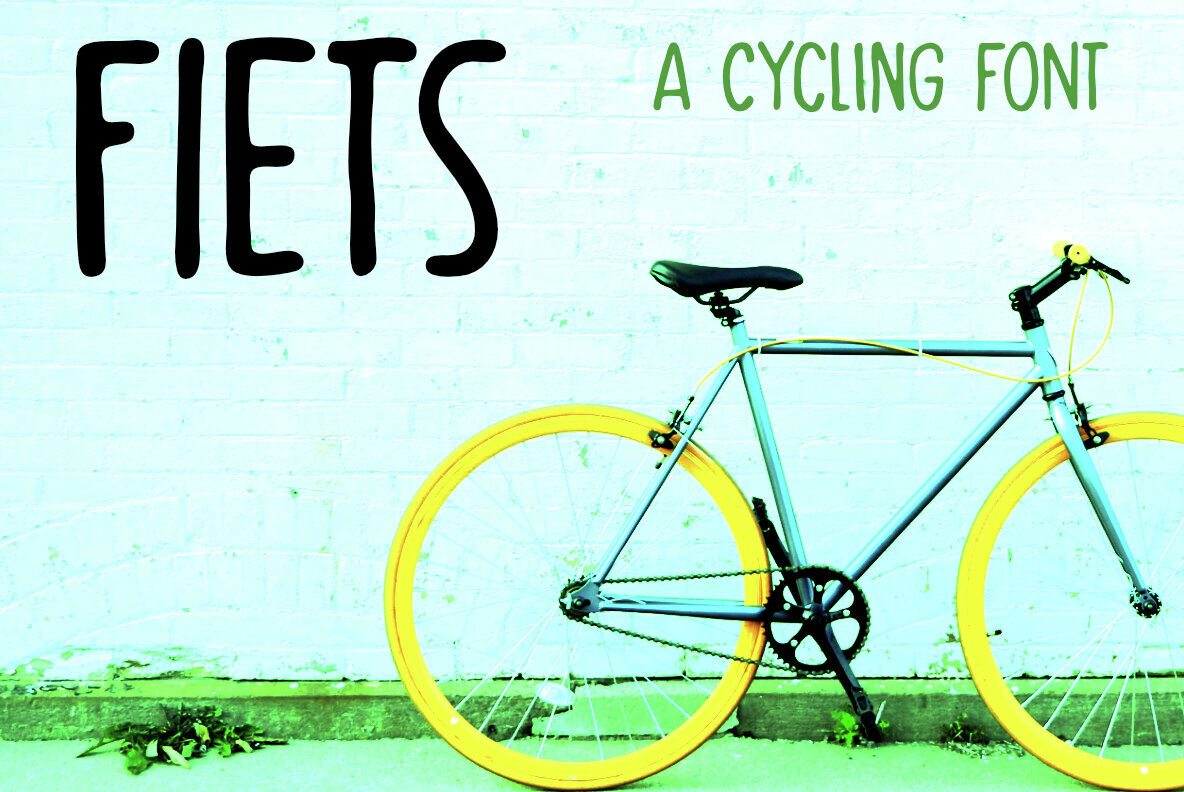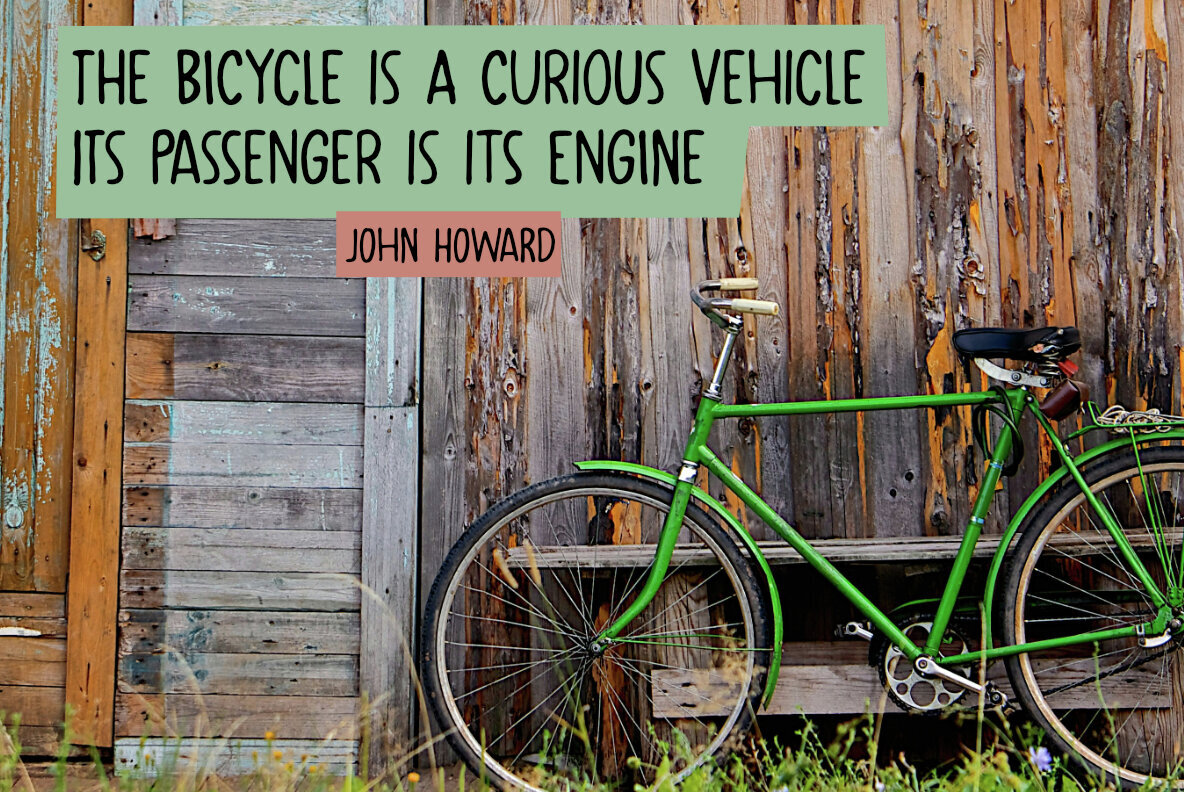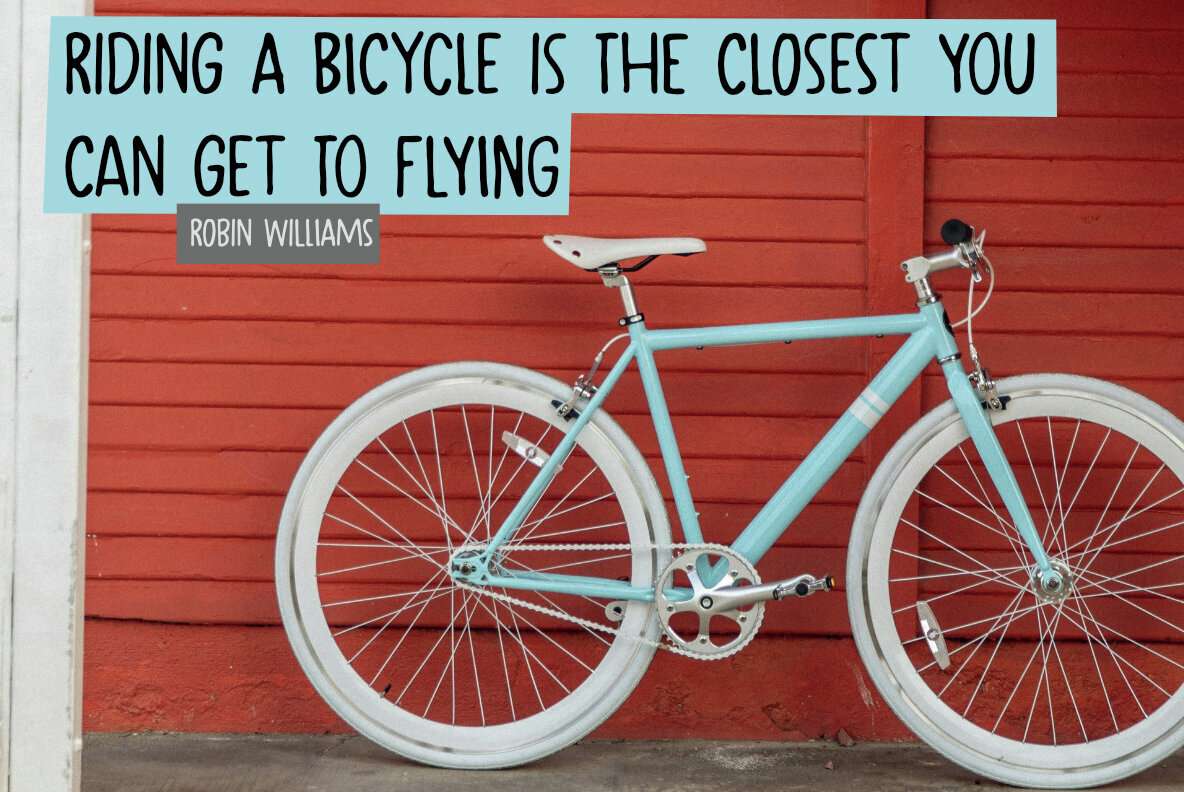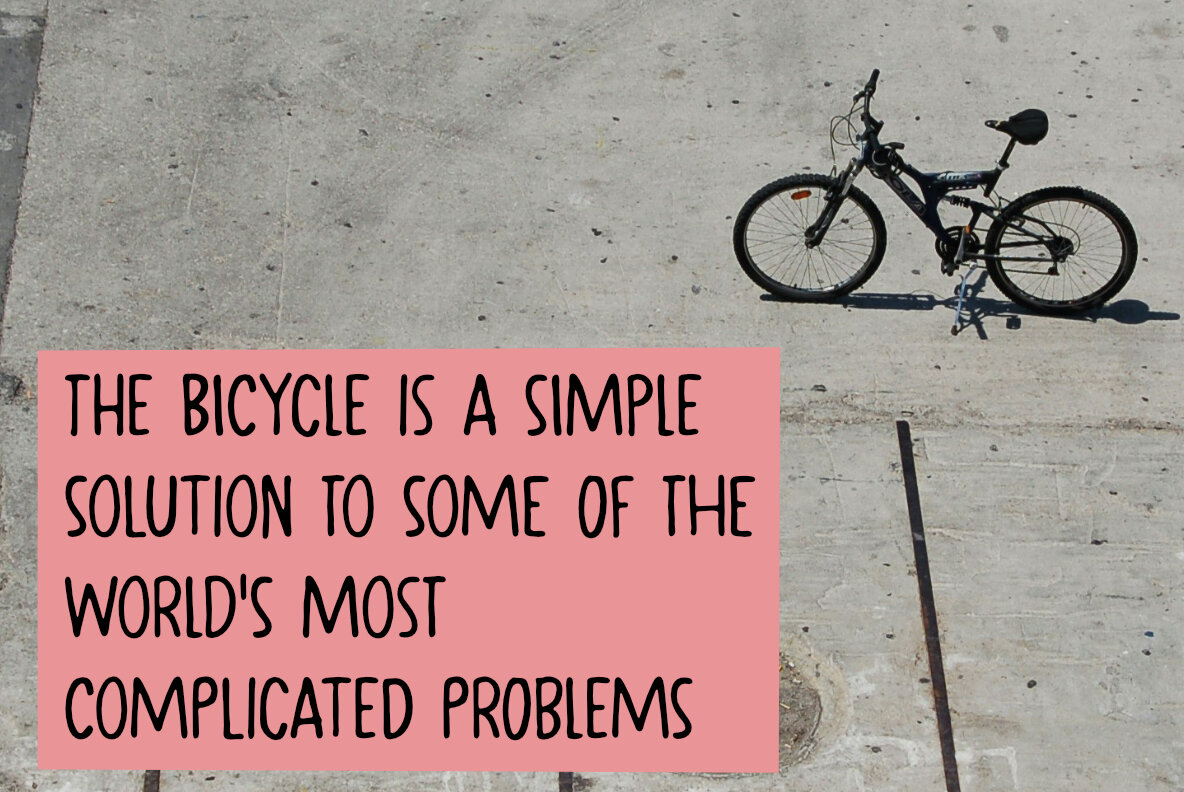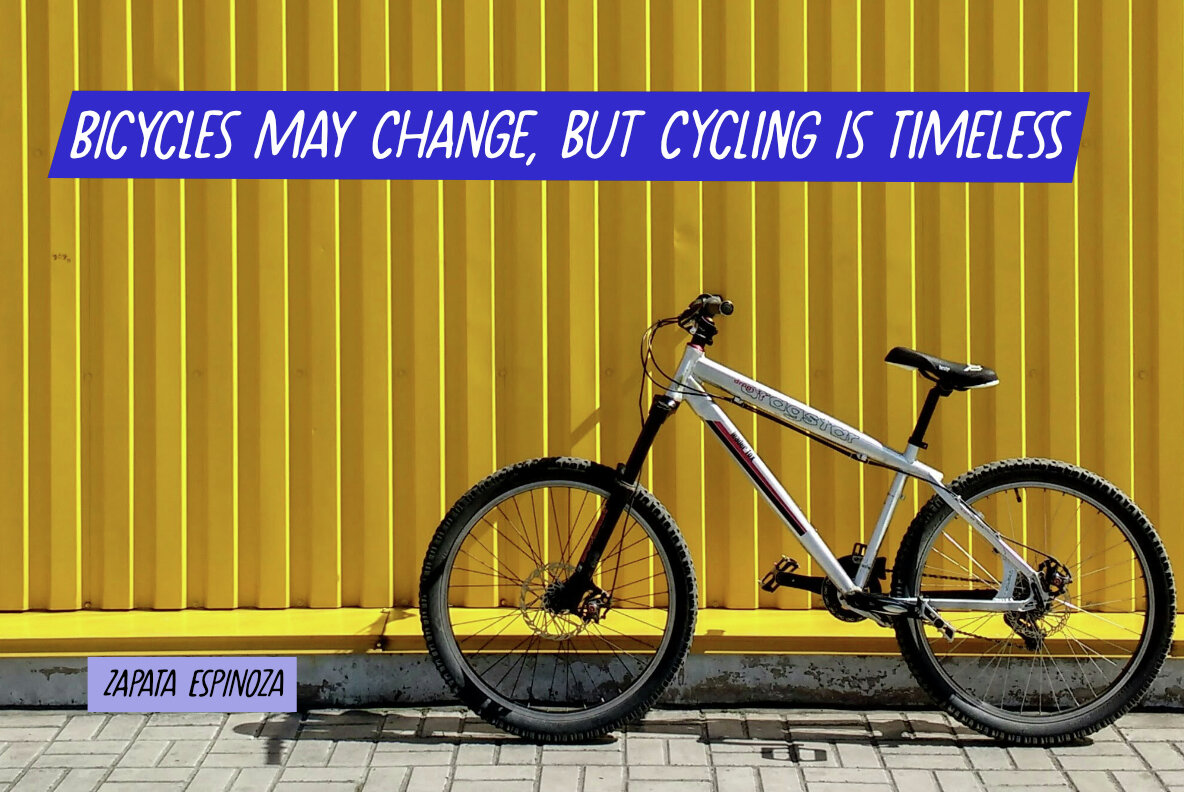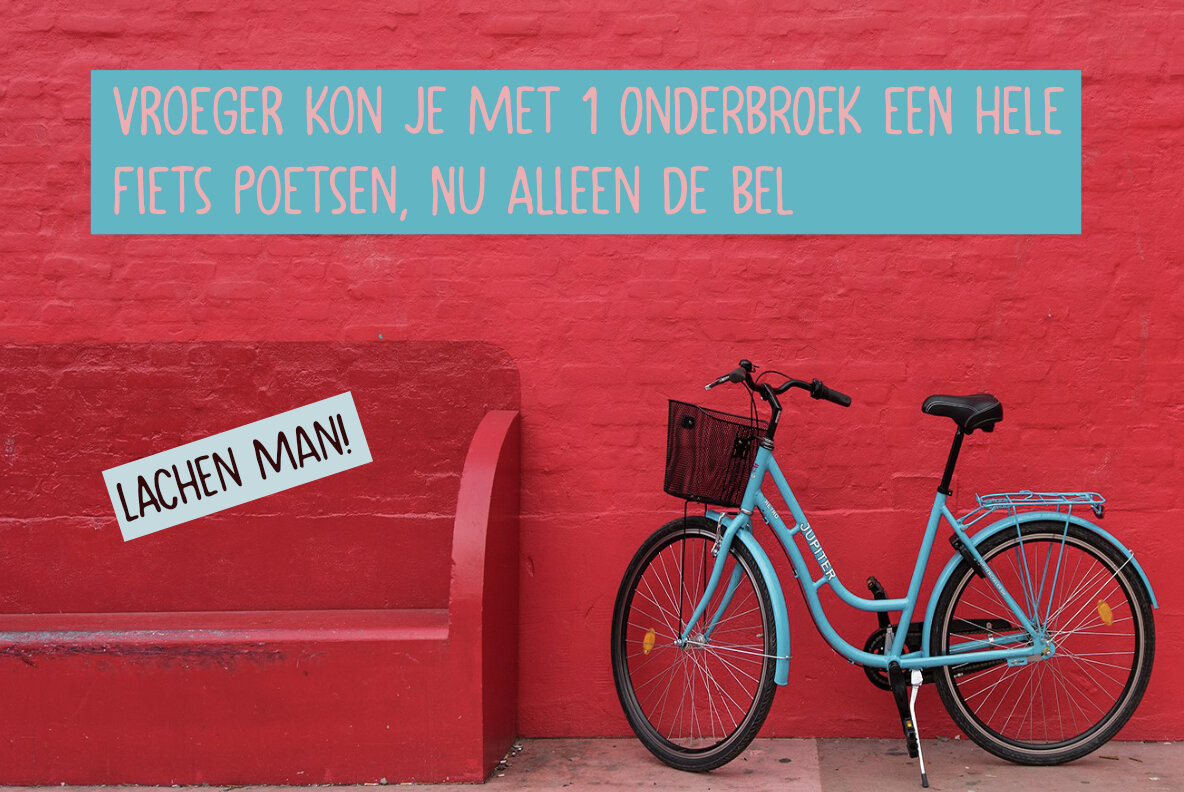
Fiets Font
Fiets Regular
Fiets Italic
Introducing Fiets, a unique font inspired by the Dutch passion for cycling. Named after the word for bicycle in Dutch, Fiets reflects the vibrant cycling culture that thrives throughout the Netherlands. This handmade typeface was crafted using a Japanese brush-pen, resulting in distinct and dynamic letterforms. The subtle use of a 'gaussian blur' gives each glyph a smooth, artistic touch, making Fiets stand out in any typographic project.Fiets Font: A Dutch-Inspired Typeface